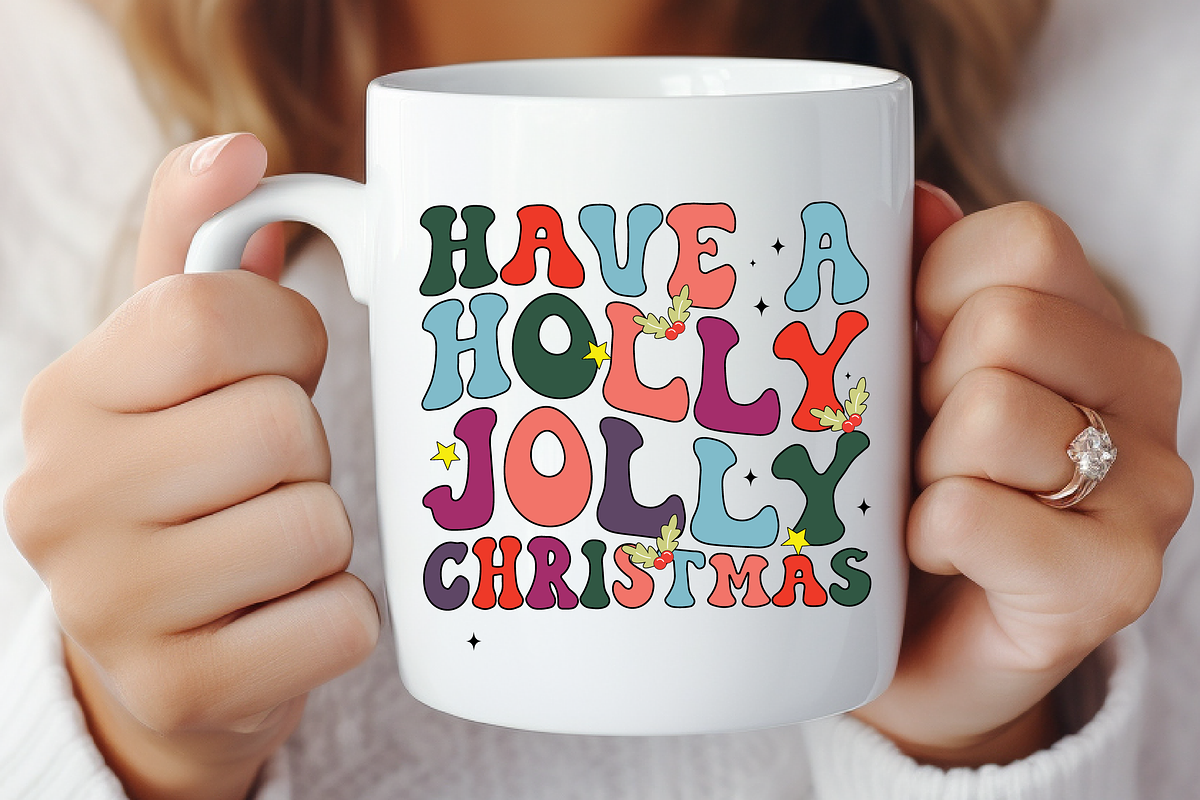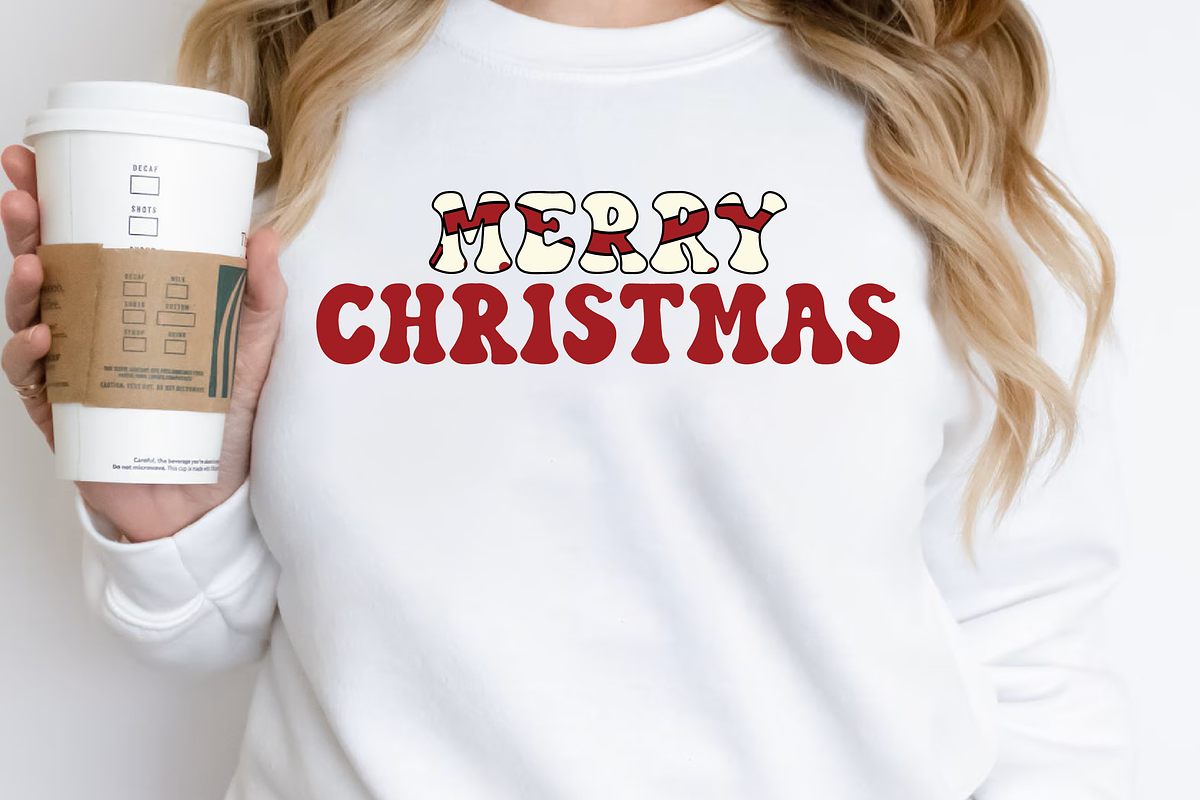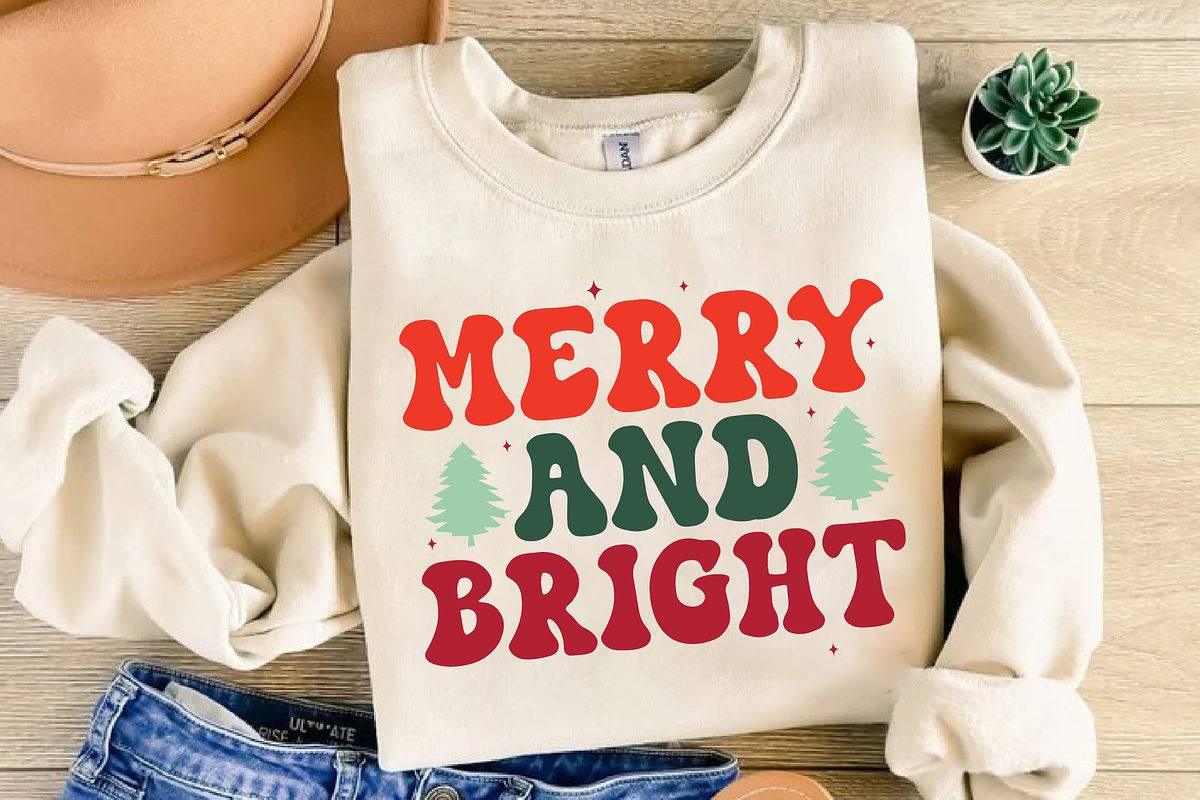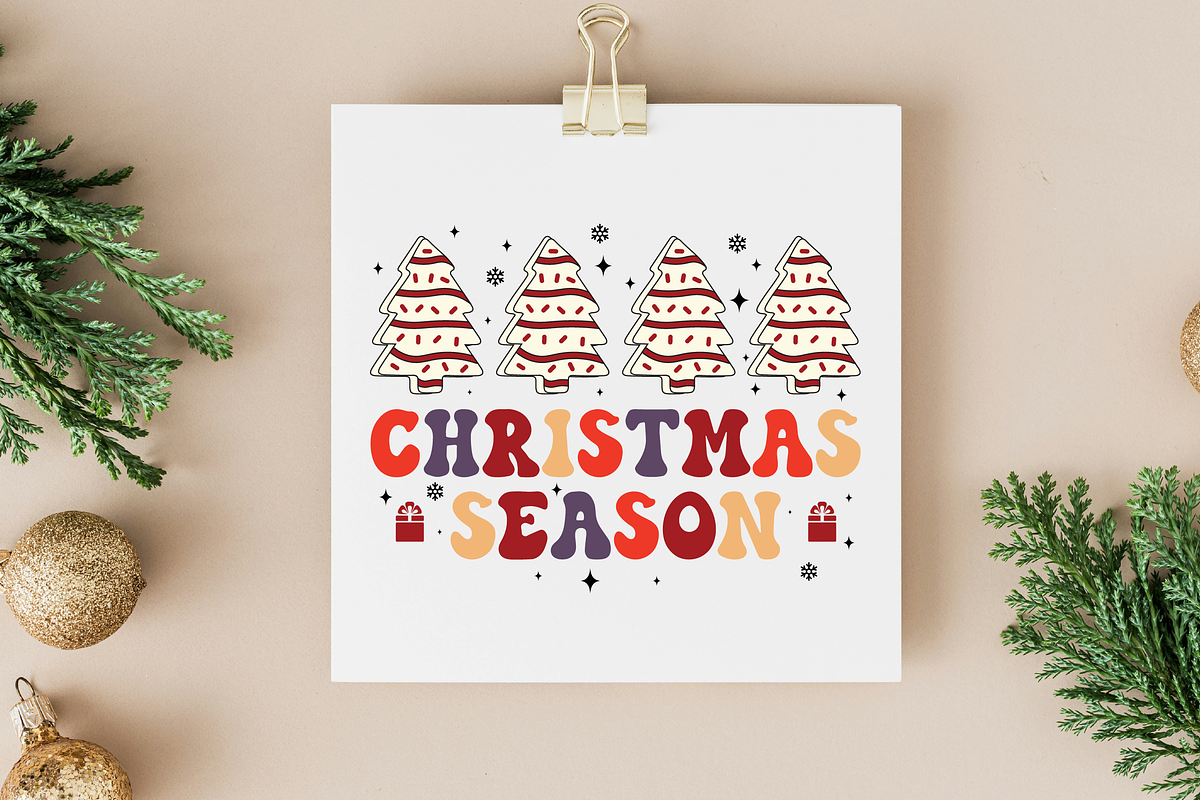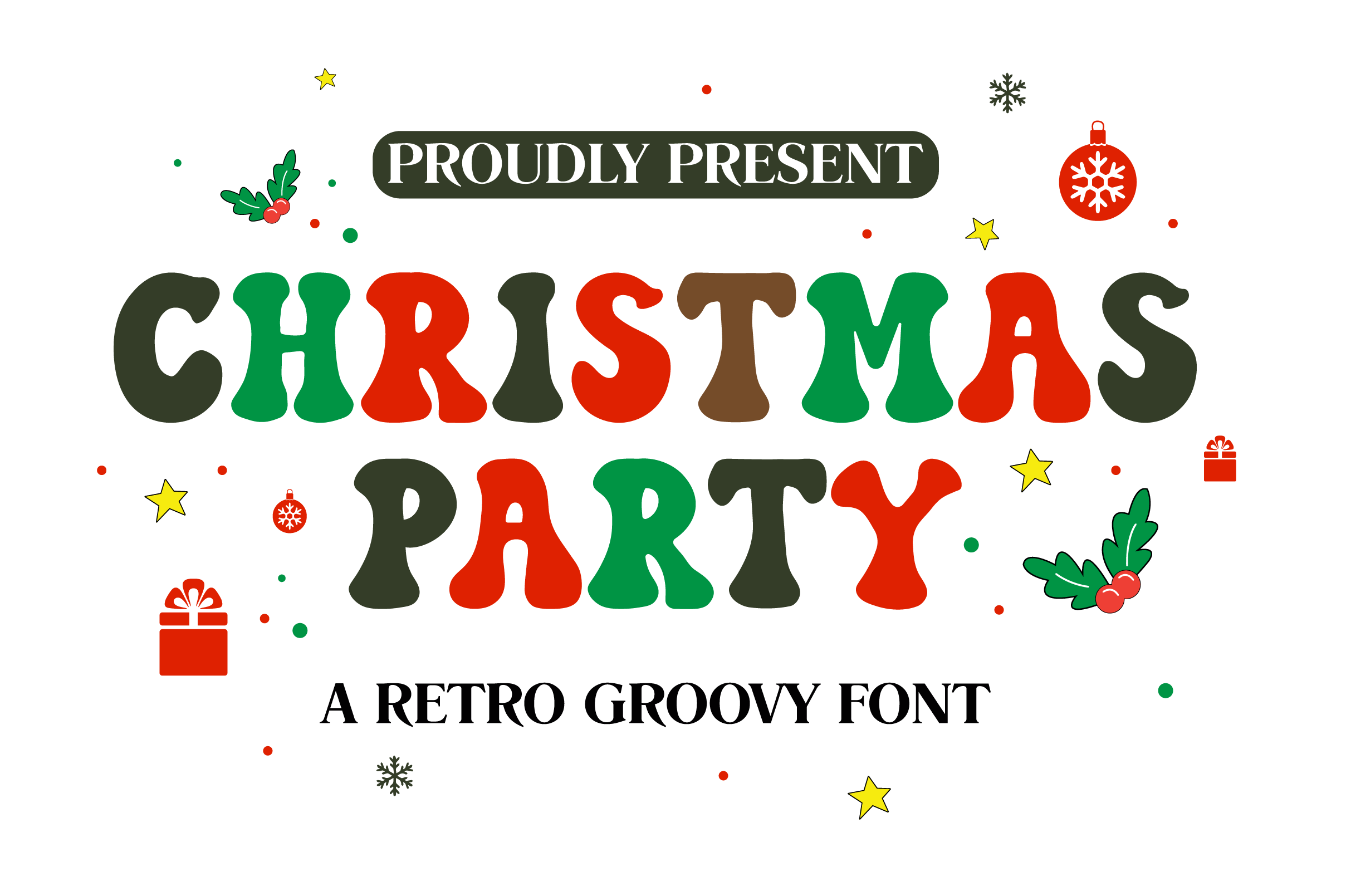
Christmas Party - Retro Font
Christmas Party is a cute retro font. The typography is also popular for the playful shape of the font. Another special aspect of it is its clear text, which makes the design even more exceptional. It is perfect for holidays, festivals or fun projects. Use it now to make your festival more beautiful. Thanks